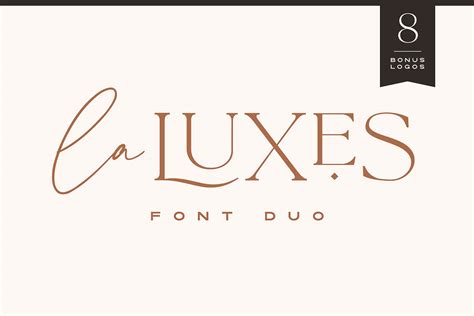
La Luxes Font Duo by Sam Parrett
Supports at least 21 languages. Web indulge yourself in a luxurious typography pairing with la luxes; Buy la luxes complete family desktop font from set sail studios on fonts.com. Designed by sam parrett in 2019. Web la luxes font family. A classic font duo consisting of an elegant script & ligature. Up to 2 typefaces / 1 value packs. A classic font duo consisting of an elegant script &. Indulge yourself in a luxurious typography pairing with la luxes; Web woff is supported in safari versions 5.1+.
Web la luxes font family. Indulge yourself in a luxurious typography pairing with la luxes; Designed by sam parrett in 2019. Web woff is supported in safari versions 5.1+. A classic font duo consisting of an elegant script &. Web la luxes font family. Up to 2 typefaces / 1 value packs. Buy la luxes complete family desktop font from set sail studios on fonts.com. Supports at least 21 languages. A classic font duo consisting of an elegant script & ligature. Web indulge yourself in a luxurious typography pairing with la luxes;